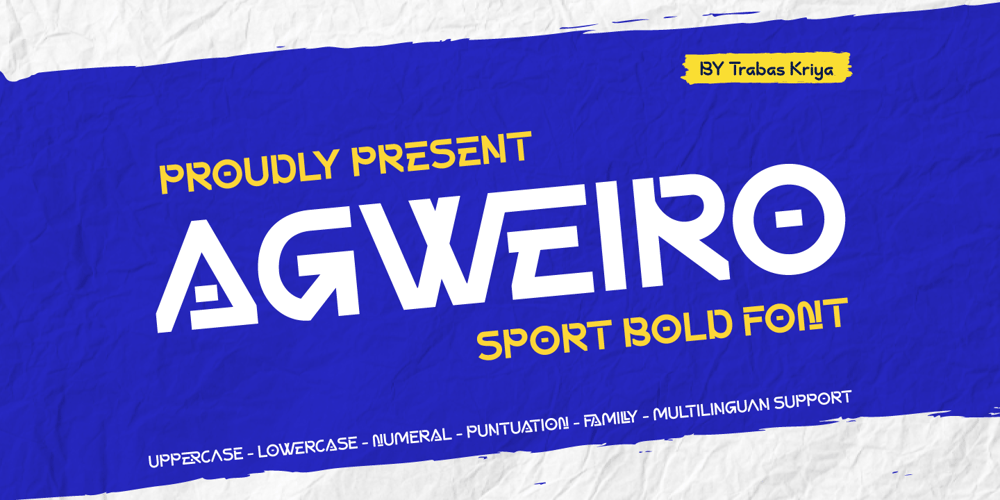
Agweiro Font Family was designed by Murozakul Akhsan and published by Trabas Kriya. Agweiro contains 6 styles and family package options. Agweiro – Bold Sport Font is a dynamic and strong typeface made for sports-related designs. With bold, angular letterforms, this font is perfect for team logos and sports posters. The font includes style alternatives and multilingual support. This font captures the spirit of competition and determination, making your designs stand out with confidence and impact.Elevate your sports designs with Agweiro’s bold and bold style.